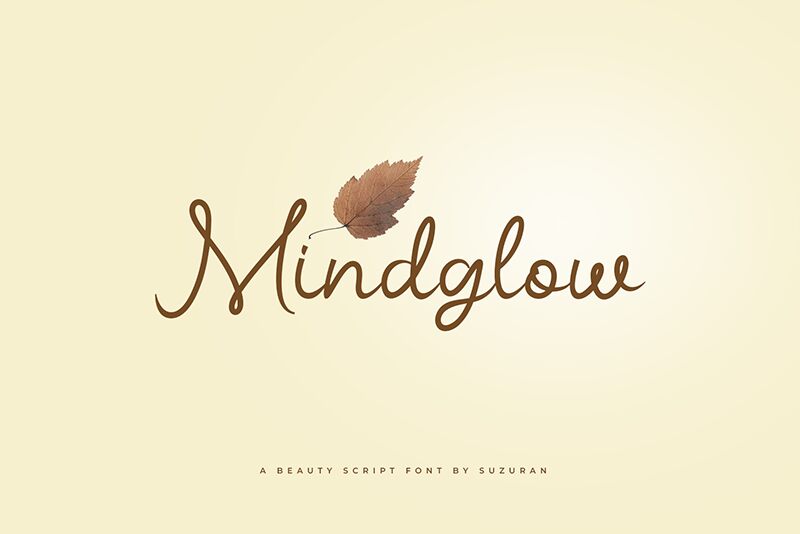
Mindglow
Mindglow font designed by Khurasan is a free condensed handwritten font with elegant and organic letter designs. Although free-flowing and whimsical, its letters are still legible enough to provide your texts with an approachable sophistication. Moreover, the font’s casual elegance can add a personalized touch as it stays suitable for different project types.
Use it in handmade product packaging designs, book covers, greeting cards, quotes or social media content. Decorate websites with it or showcase toward viewers clothes tags or branding projects. Other professional/personal uses include marketing material design (flyers/ brochures), poster design and branding projects as well.